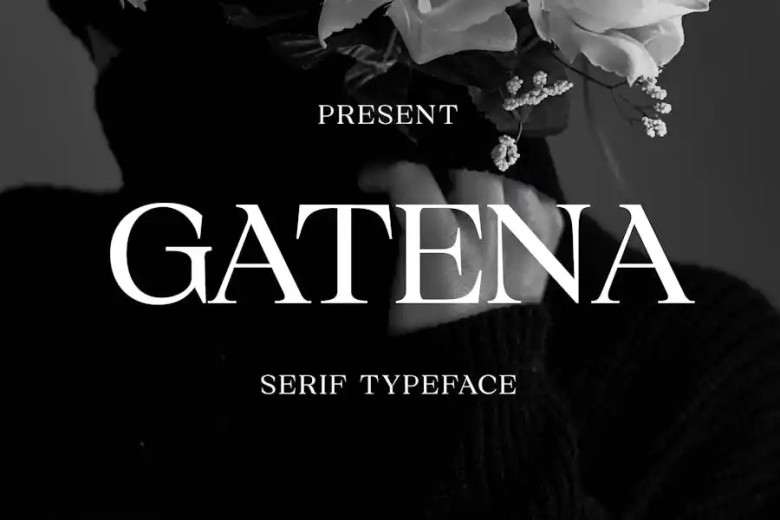
Gatena Font
Gatena is a Modern Classic font is a combination of classic luxury and modern elegance. This well-proportioned font will be perfect for design projects that require the use of a luxury feeling. Carved very carefully, each letter looks just right with a pleasant feeling of elegance. Gatena Serif Modern Classic is font with a font serif letter combined from classical style and modern touch, Clean, well-proportioned lines enable easy reading.
The proportions of the letter also give a classic and authoritative impression. This font is perfect to use in a design that requires luxury and classic feels. Perfect to use for wedding invitation, luxury promotions, or company logo that want an elegant and classic feel. Don’t miss it to have in your design resources.